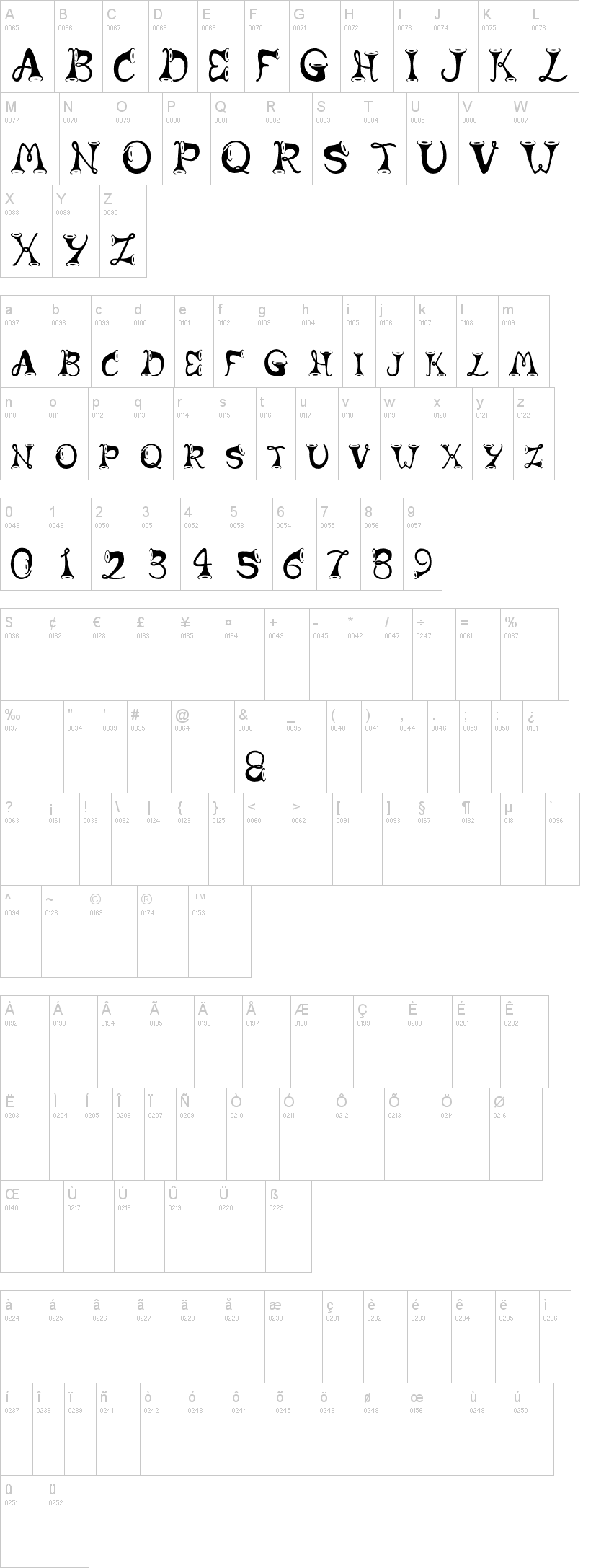
Horns
This fonts are designed by students Asif Kureshi and Khushi Jain, under the guidance of Mahendra Patel in a workshop at Faculty of Fine Arts, Maharaja Sayajirao University of Baroda, Gujarat, India.
Horns are inspired by Music instrument Trumpet...